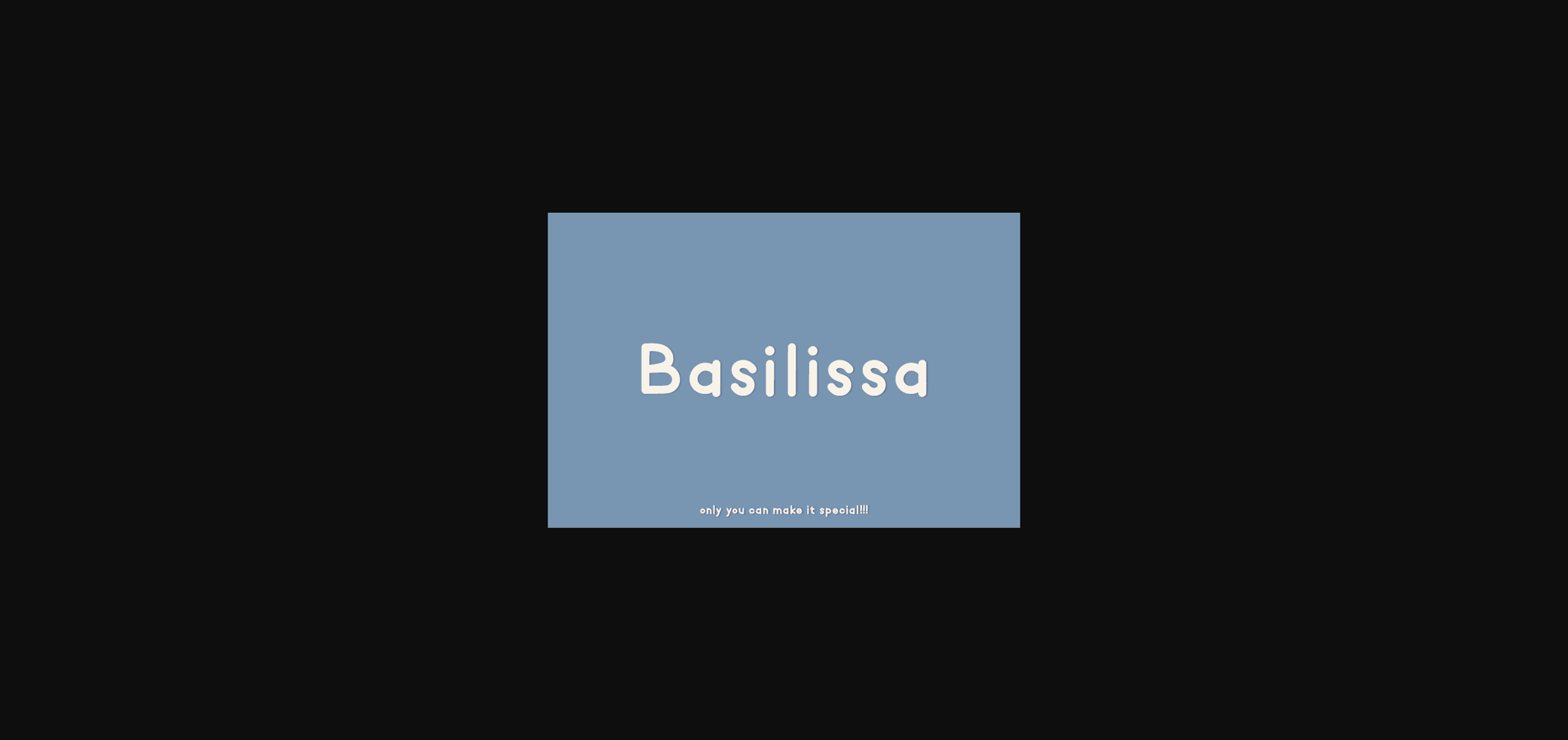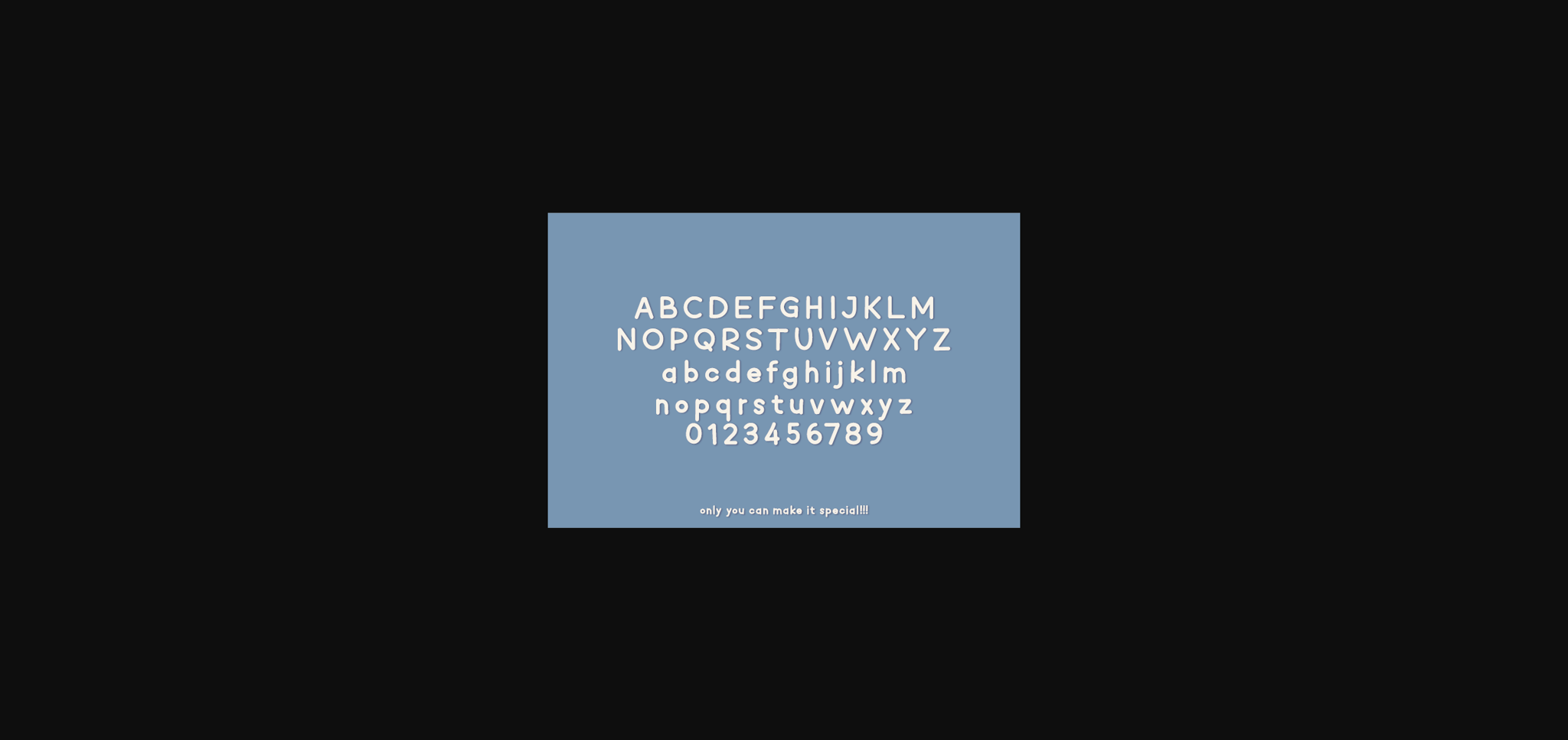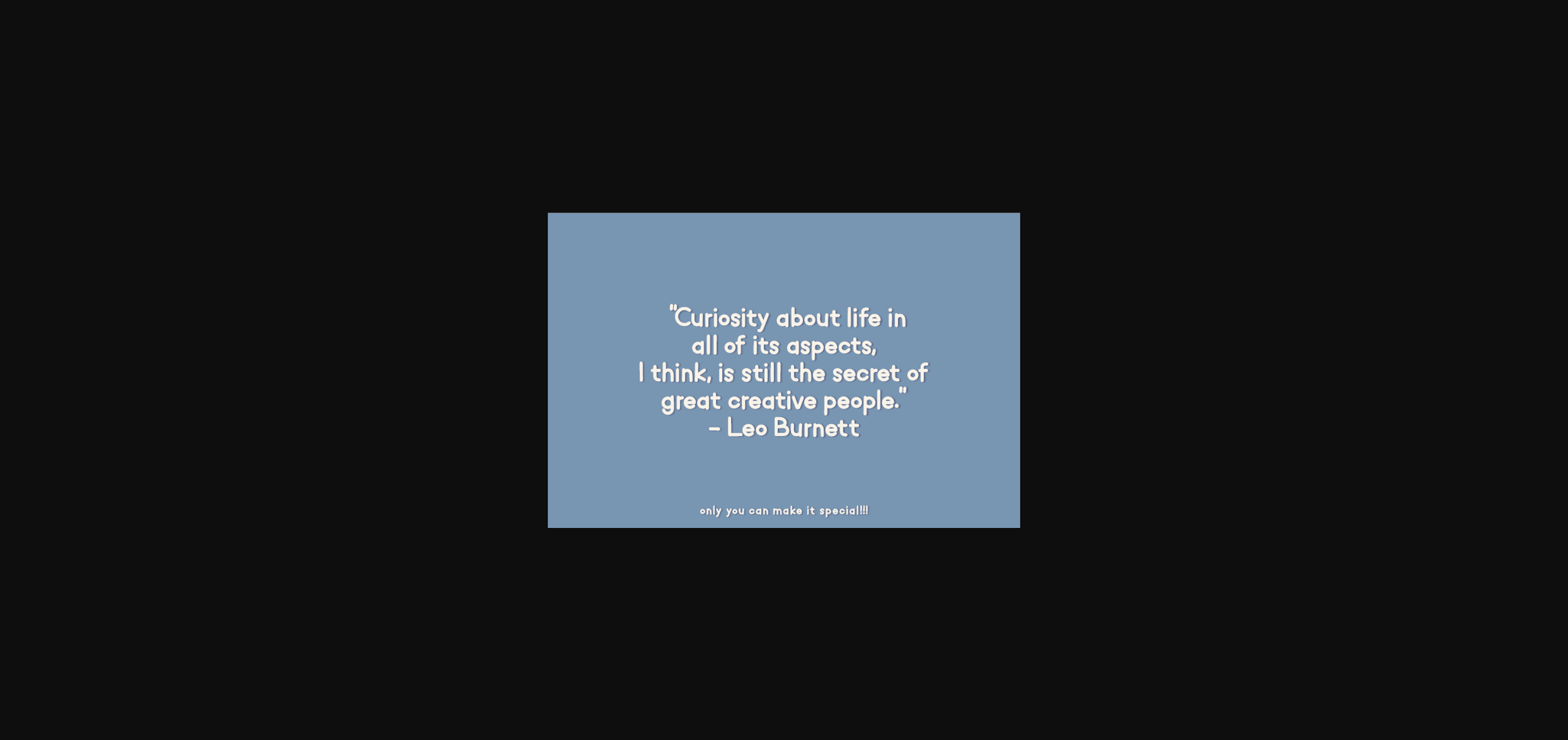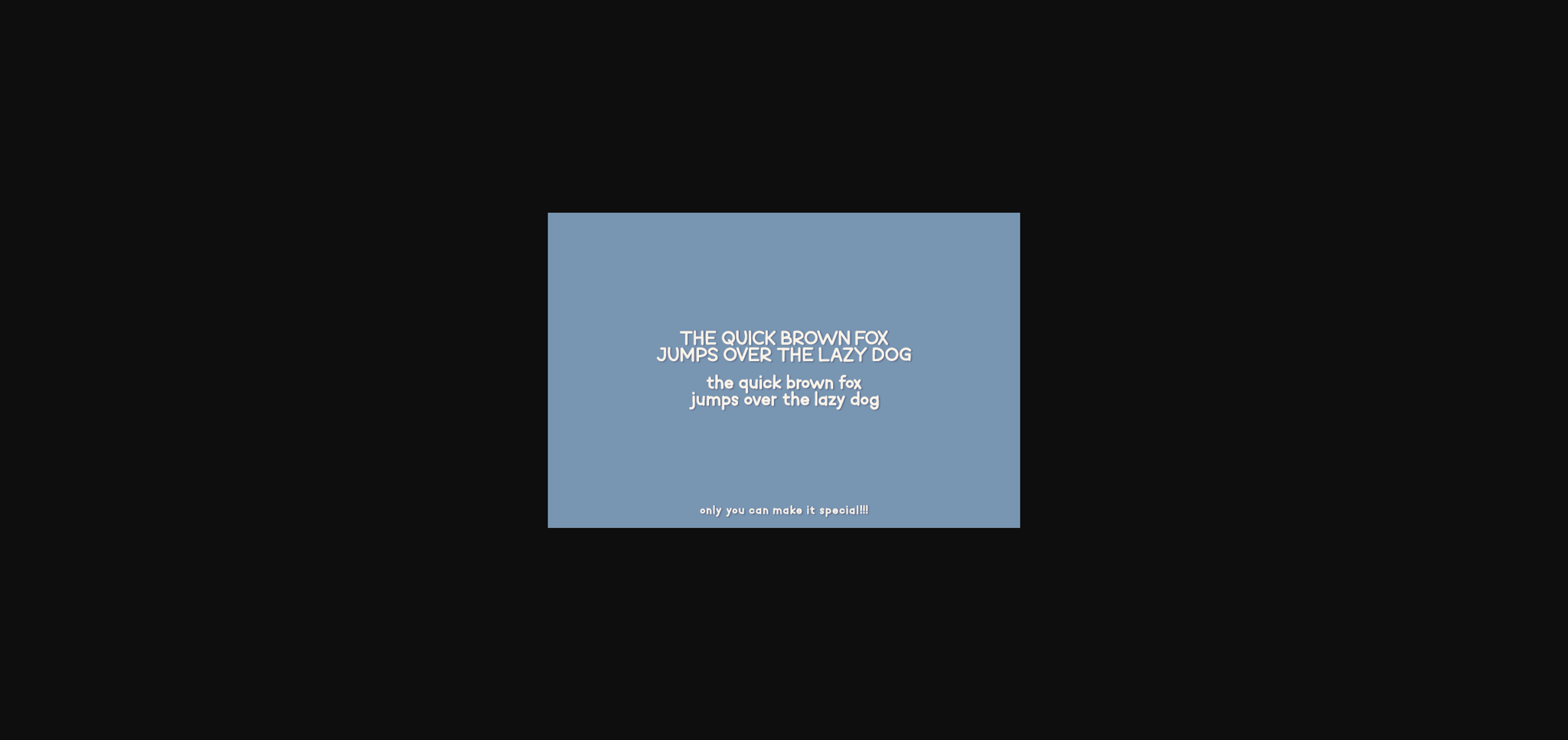
About Basilissa Font
Basilissa is a natural sans serif font made without changing a single node in each character’s indentation – this makes this font very interesting and unique. Perfect for quotes, notes, tees, and any product design.